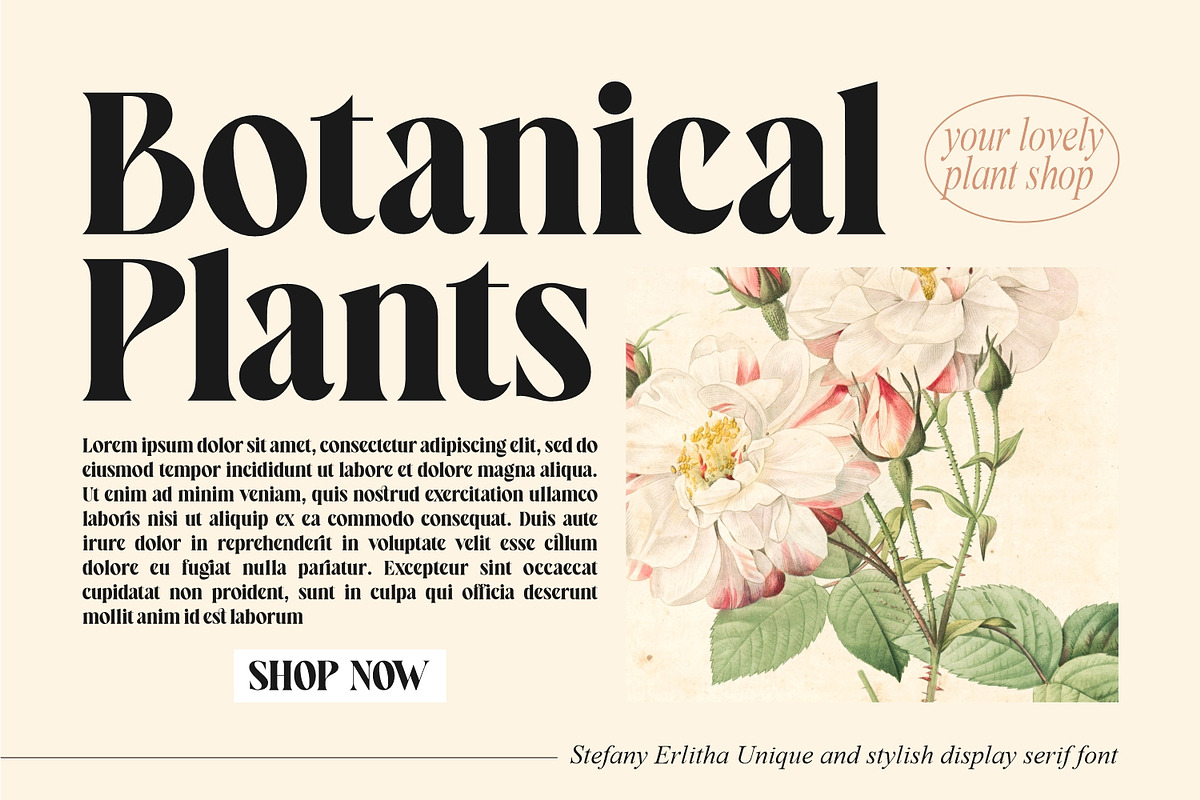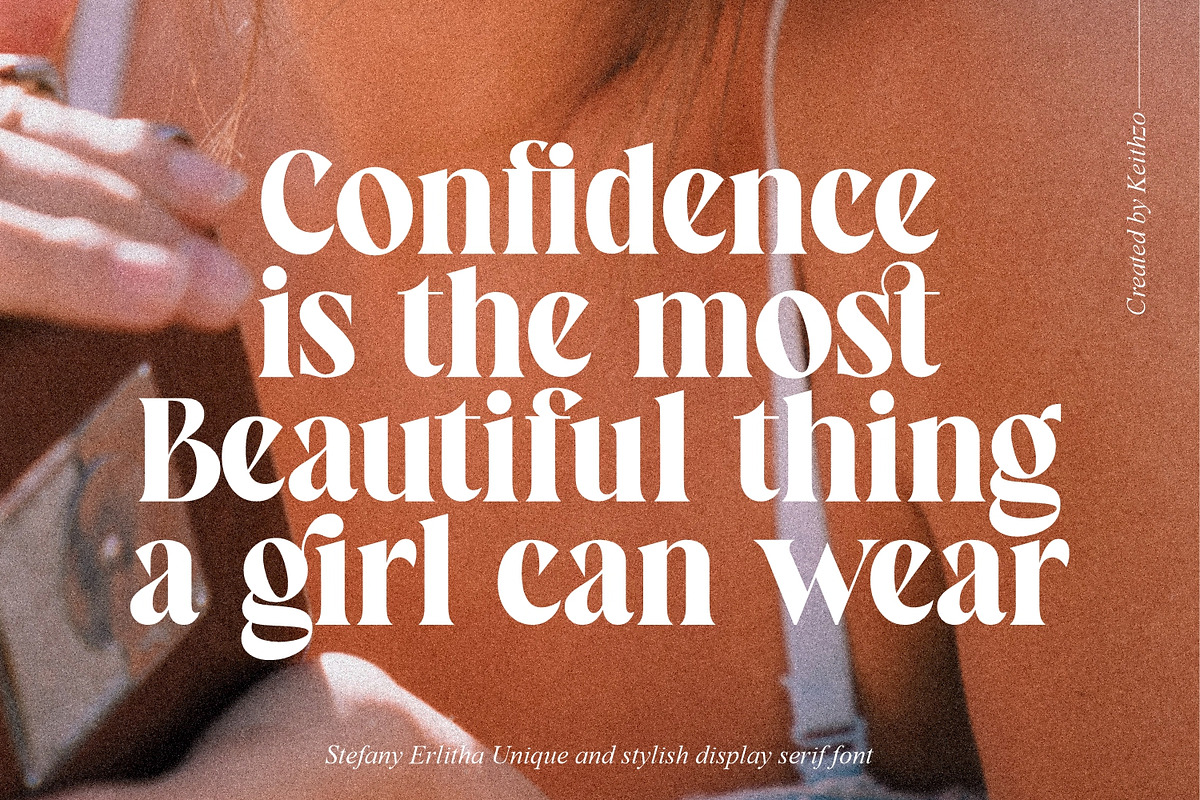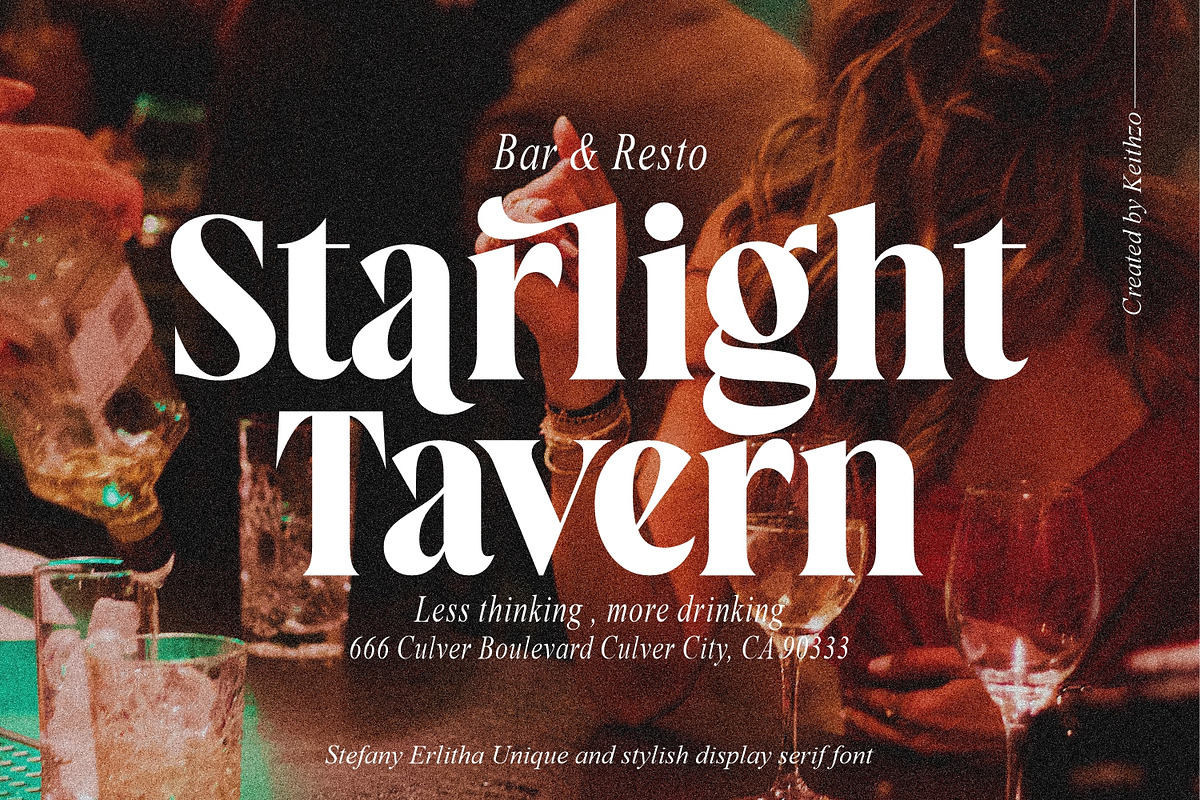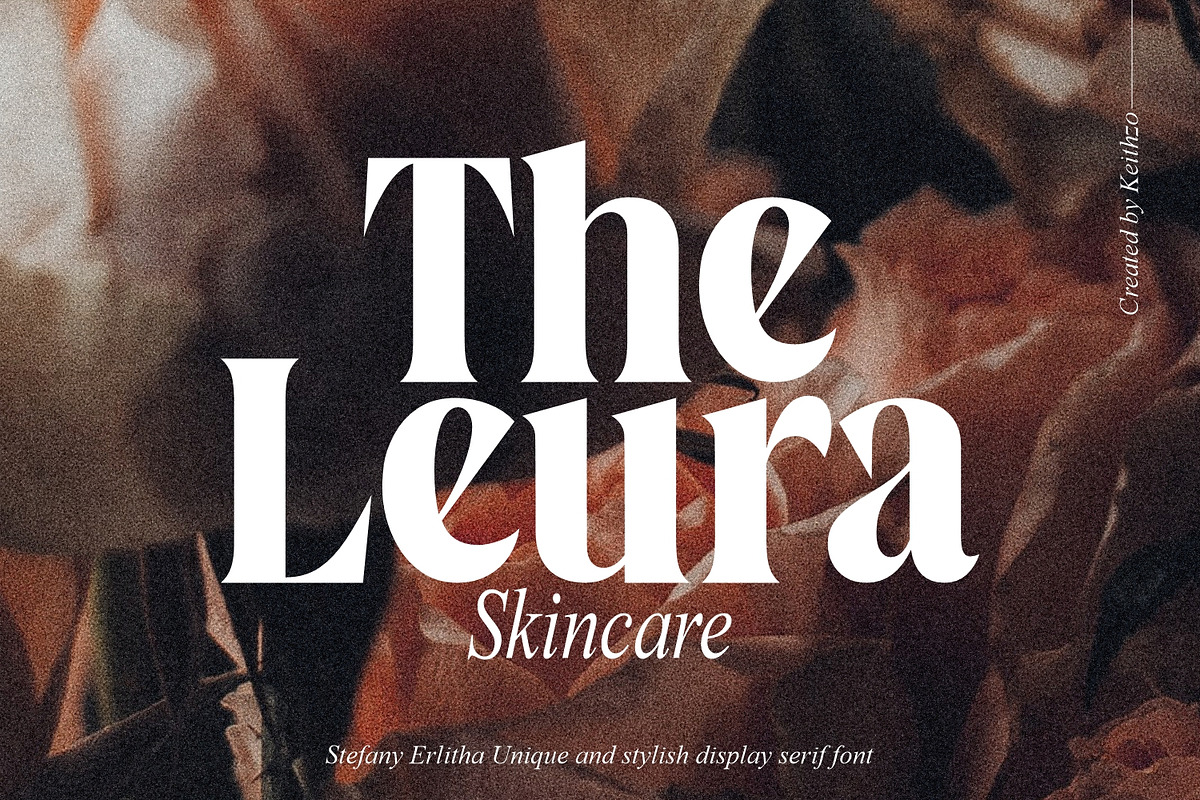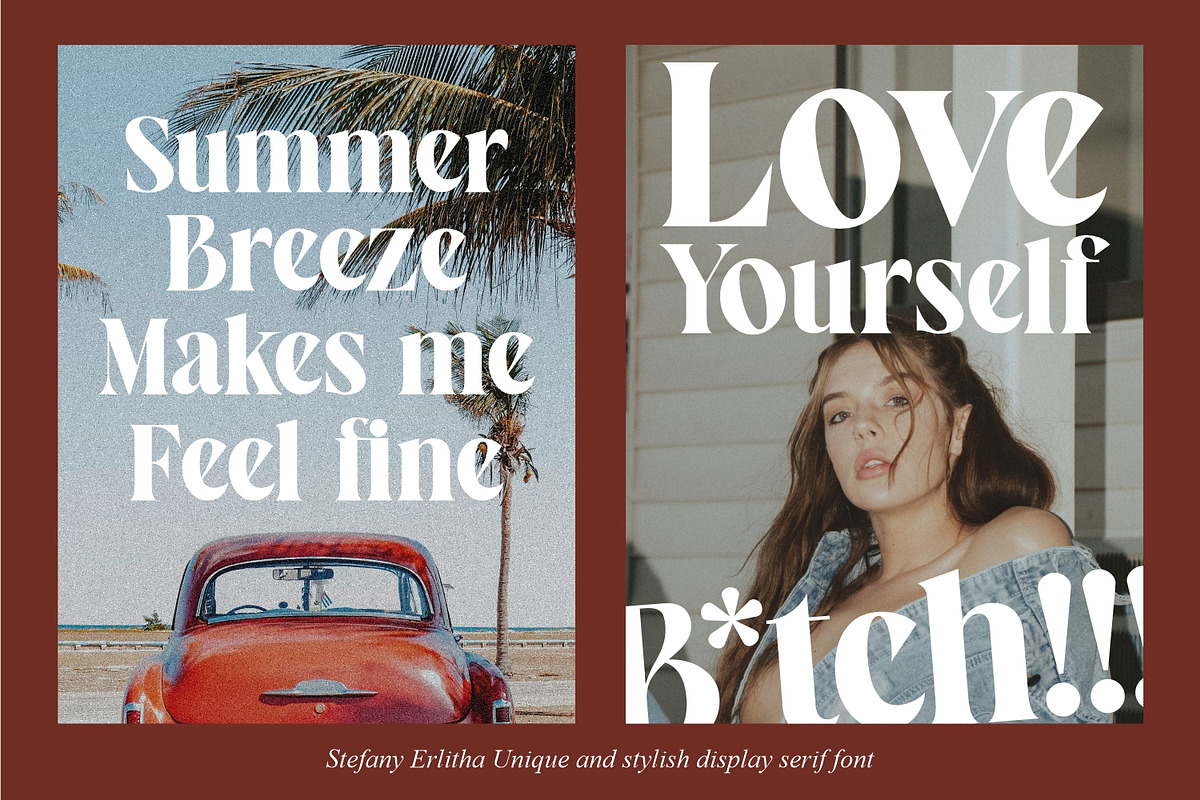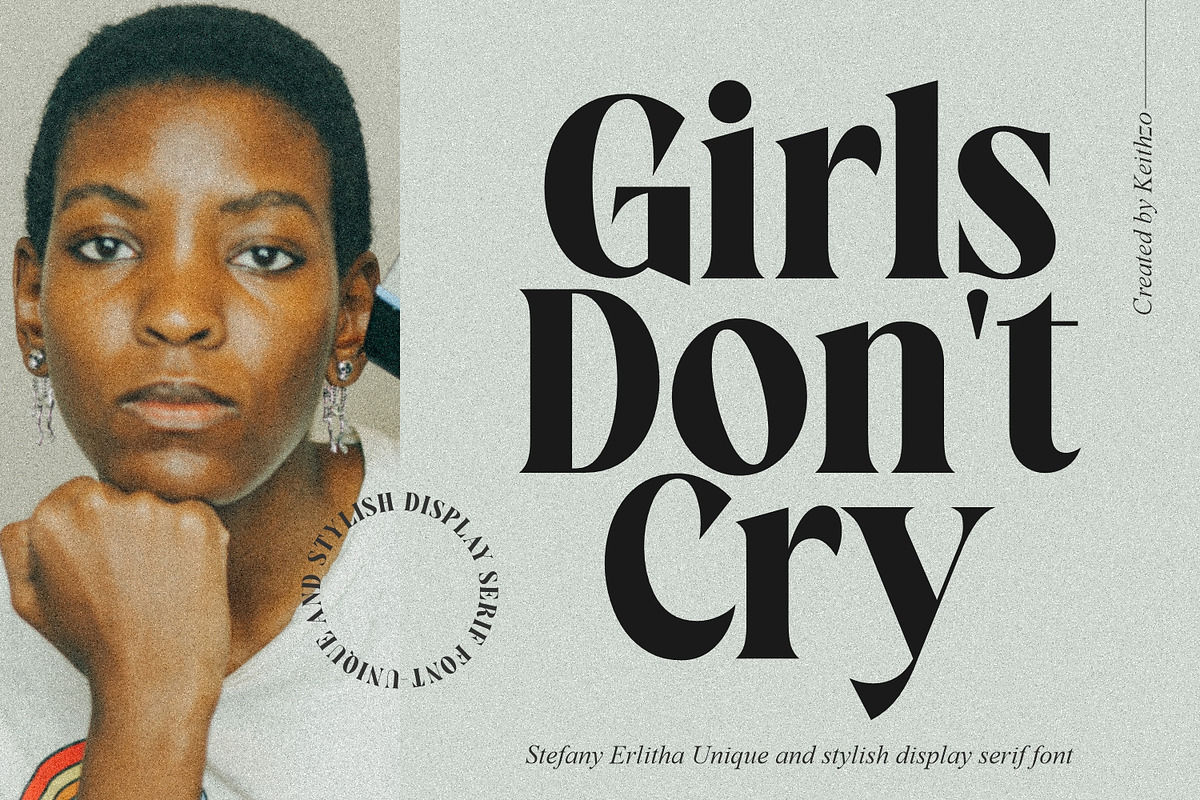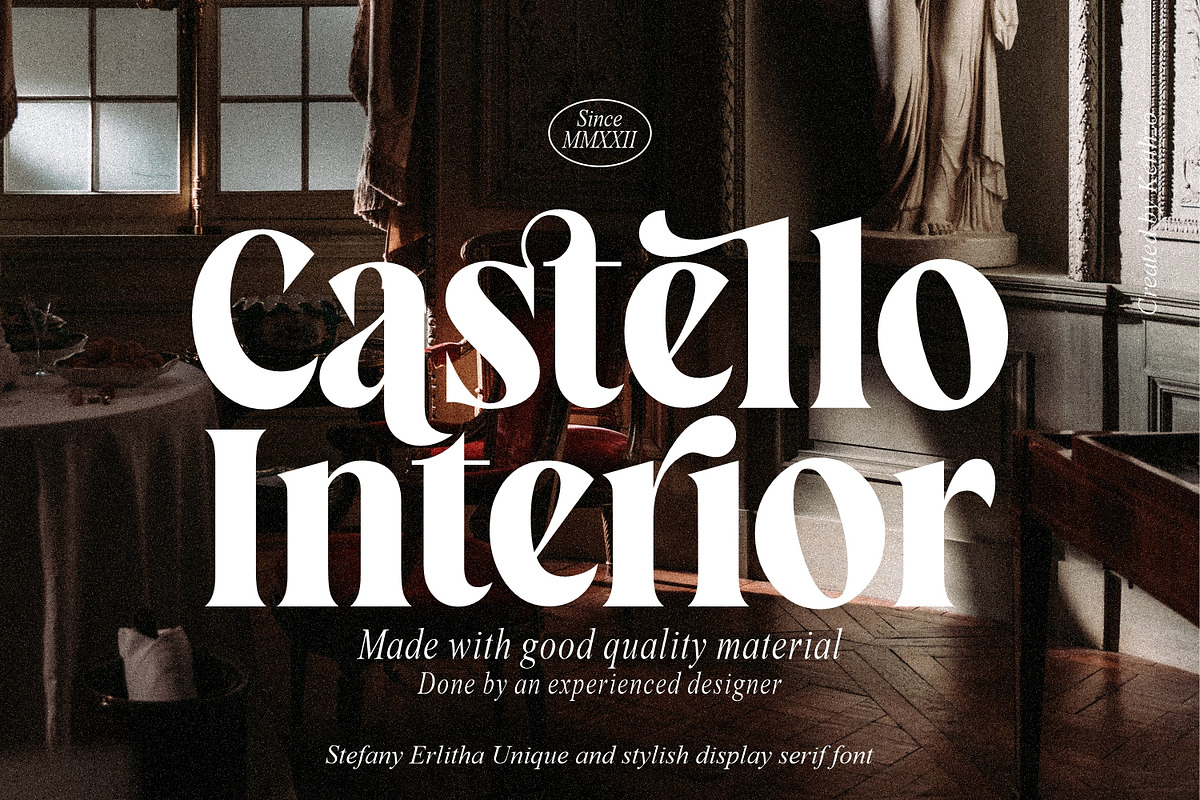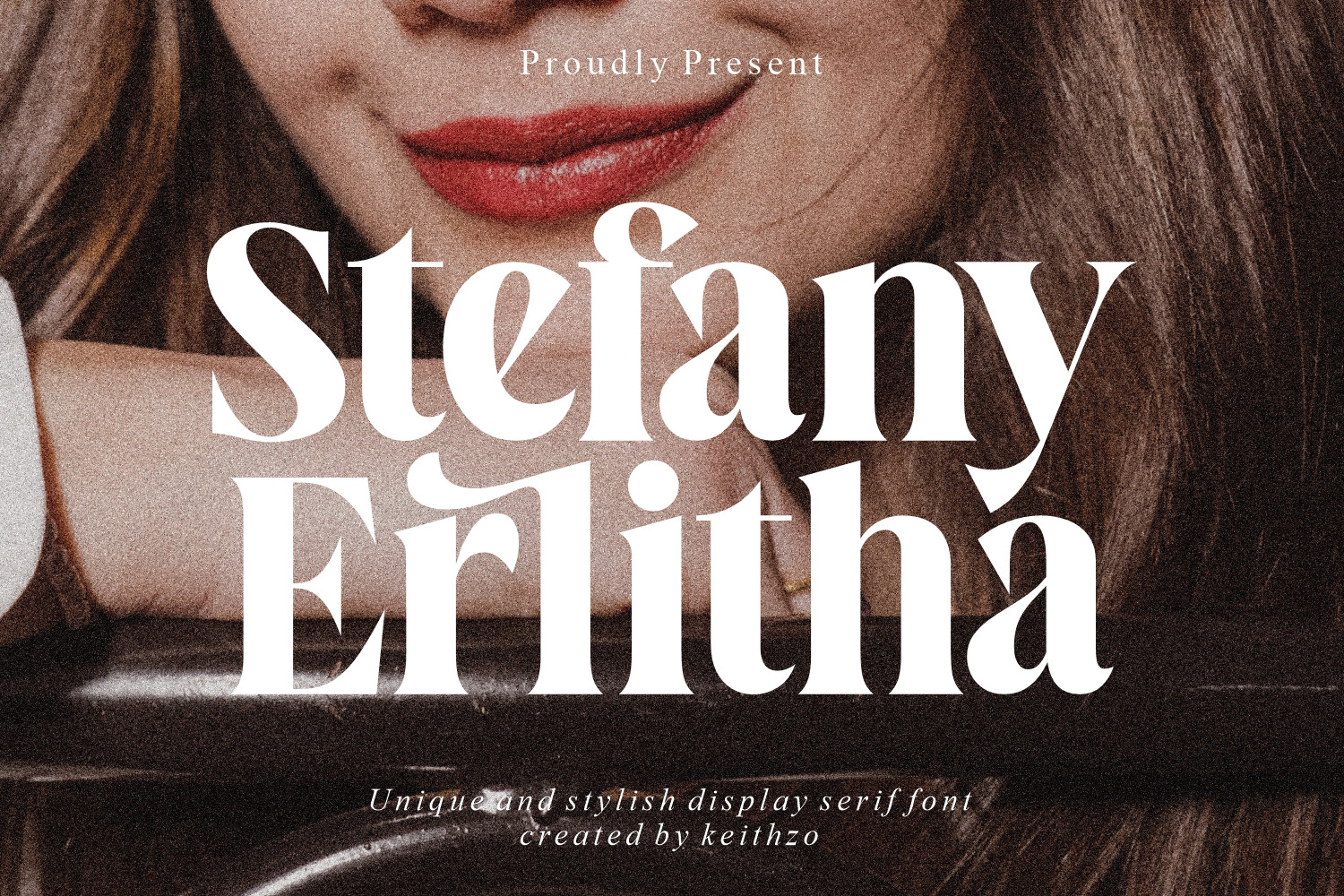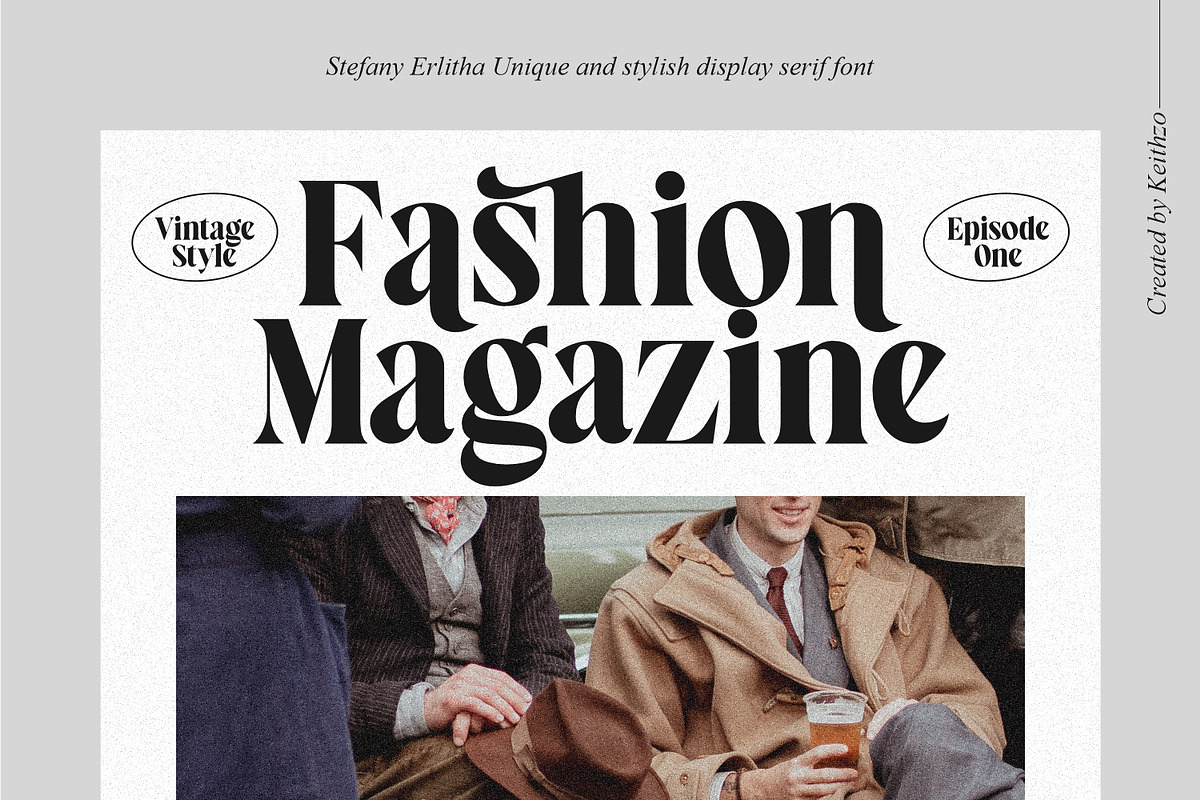
Stefany Erlitha - Display Serif Font
Step up your design game with our unique and stylish display font. With its eye-catching and distinctive letterforms, this font is perfect for creating a one of a kind look that will set your designs apart. Stefany Erlitha modern yet timeless design ensures that it will remain relevant and attractive for years to come. This font is PUA encoded which means you can access all glyphs and swashes effortlessly!